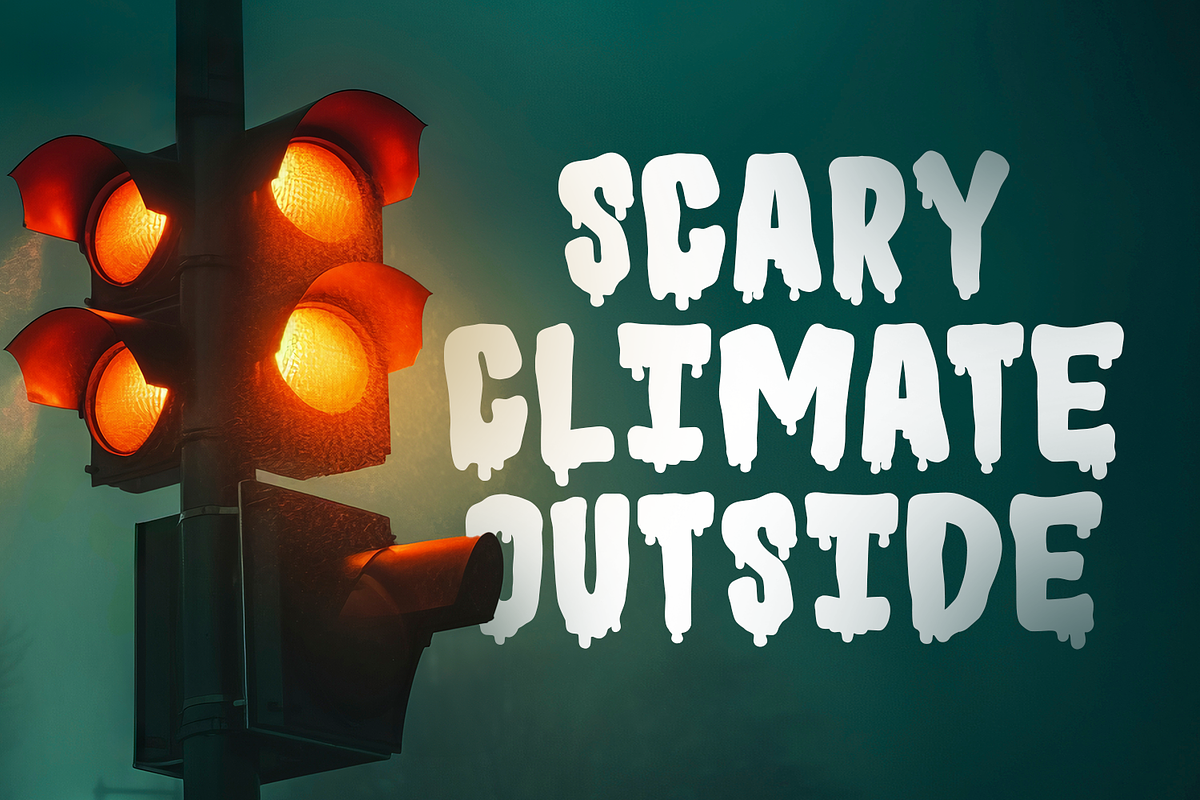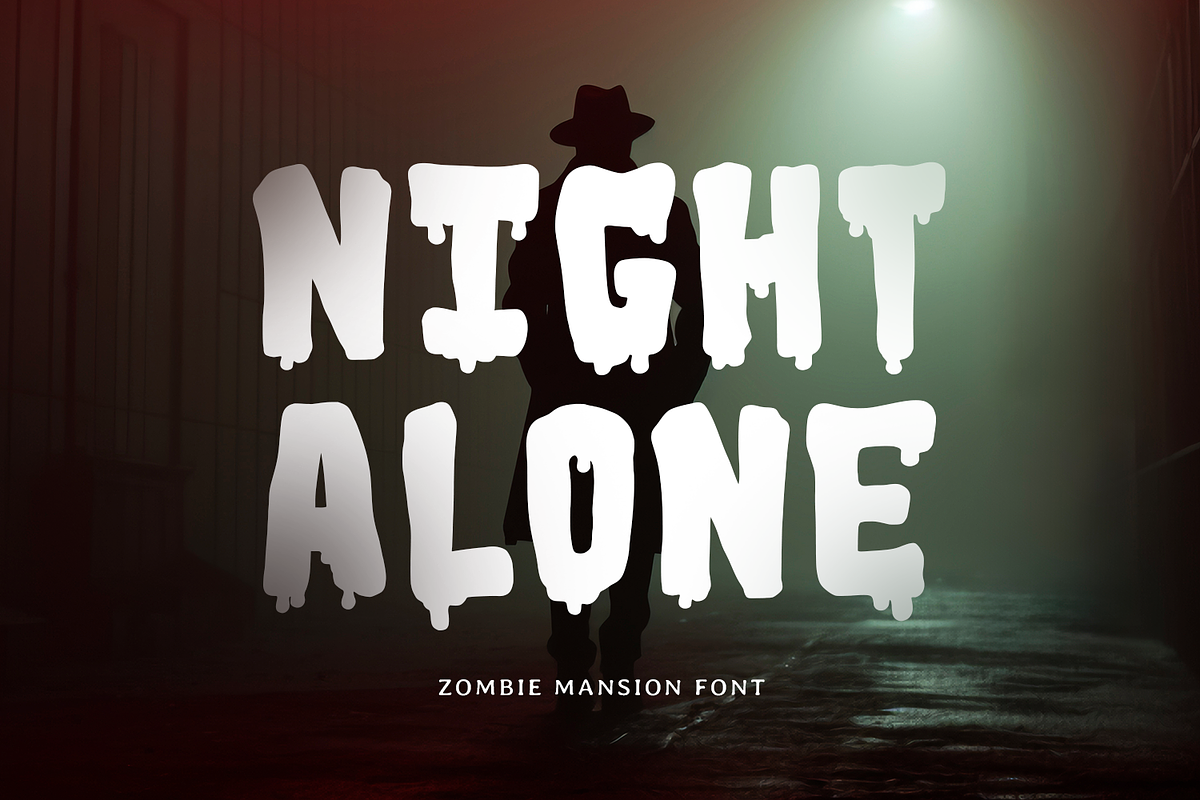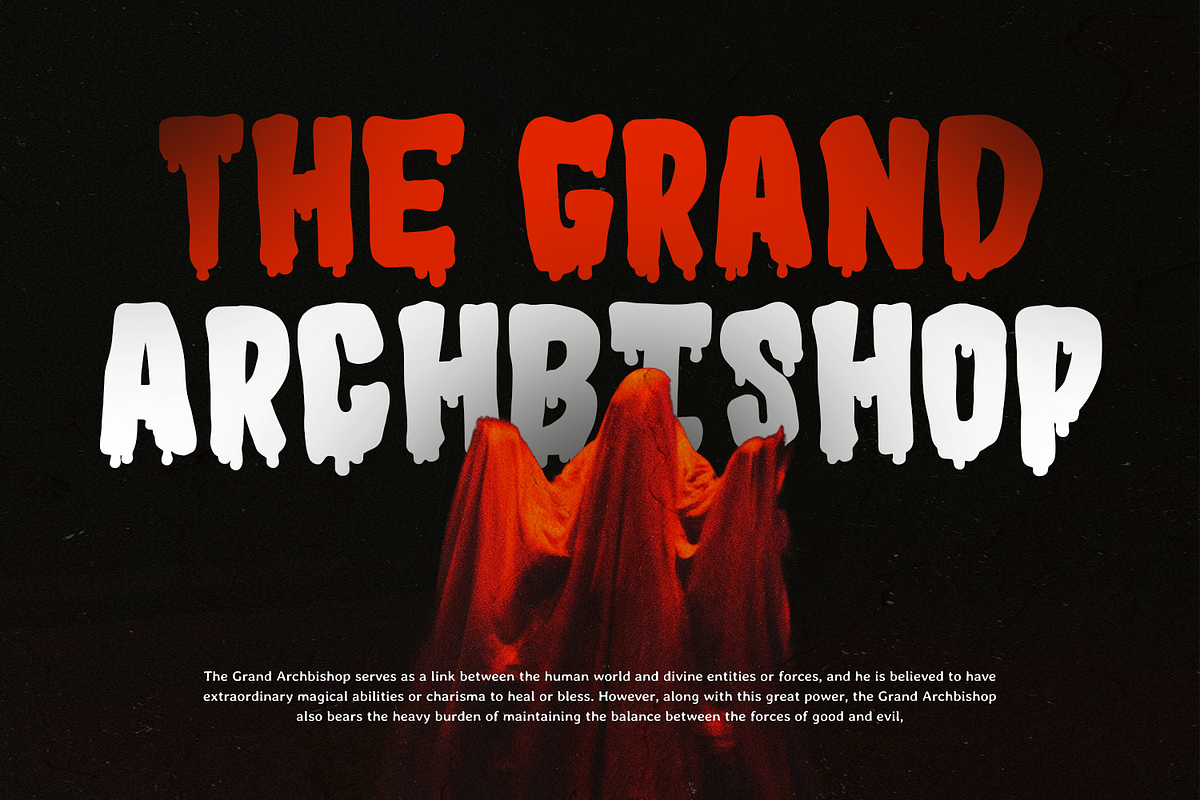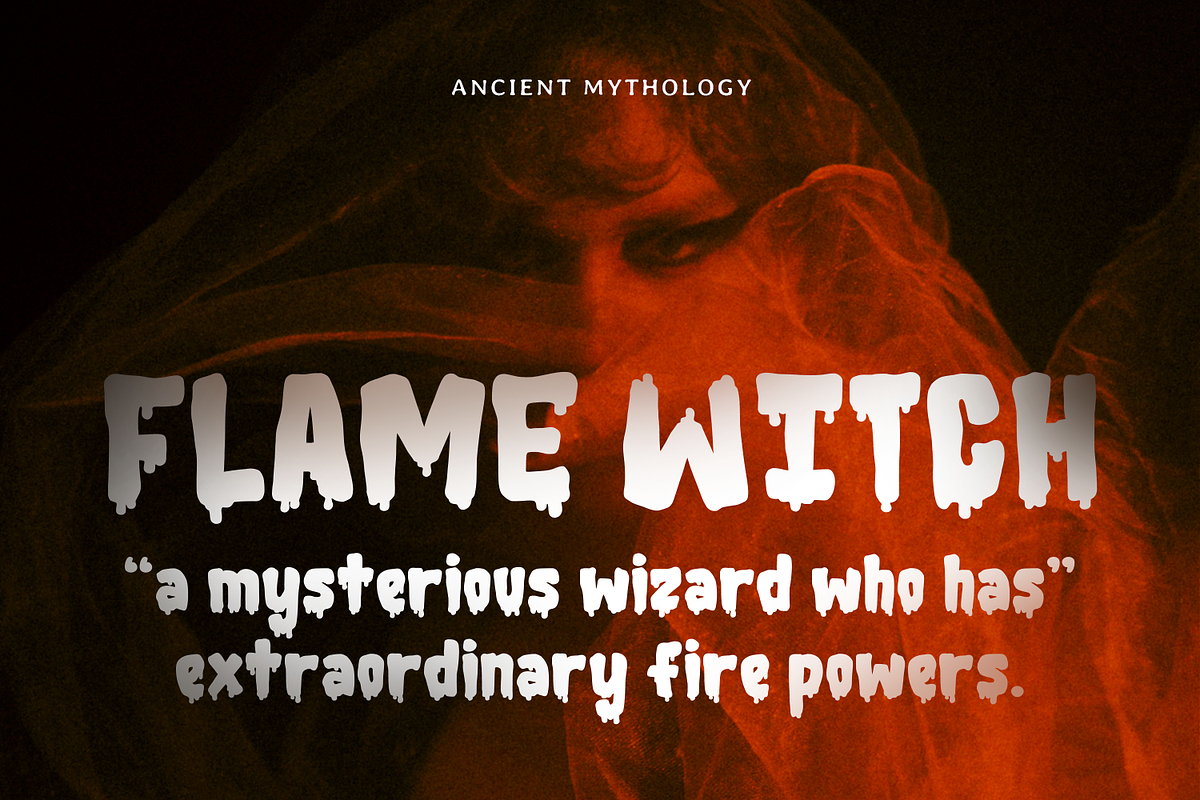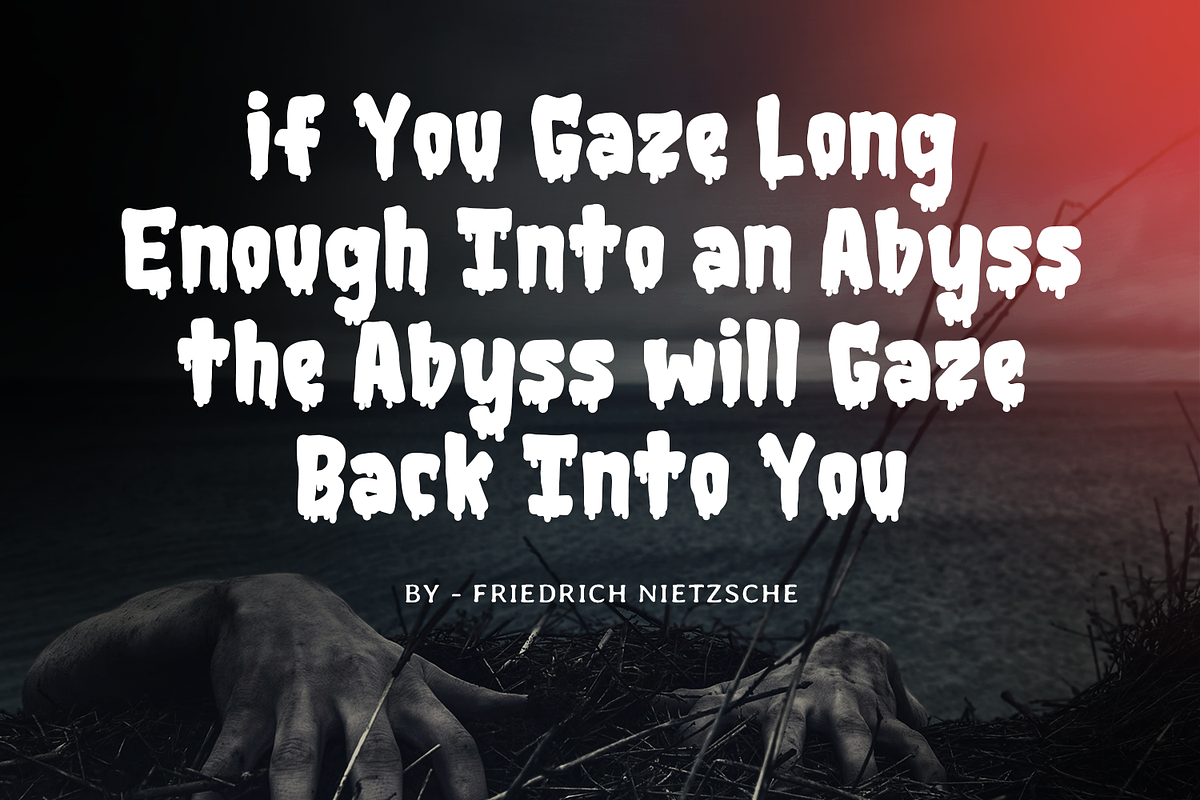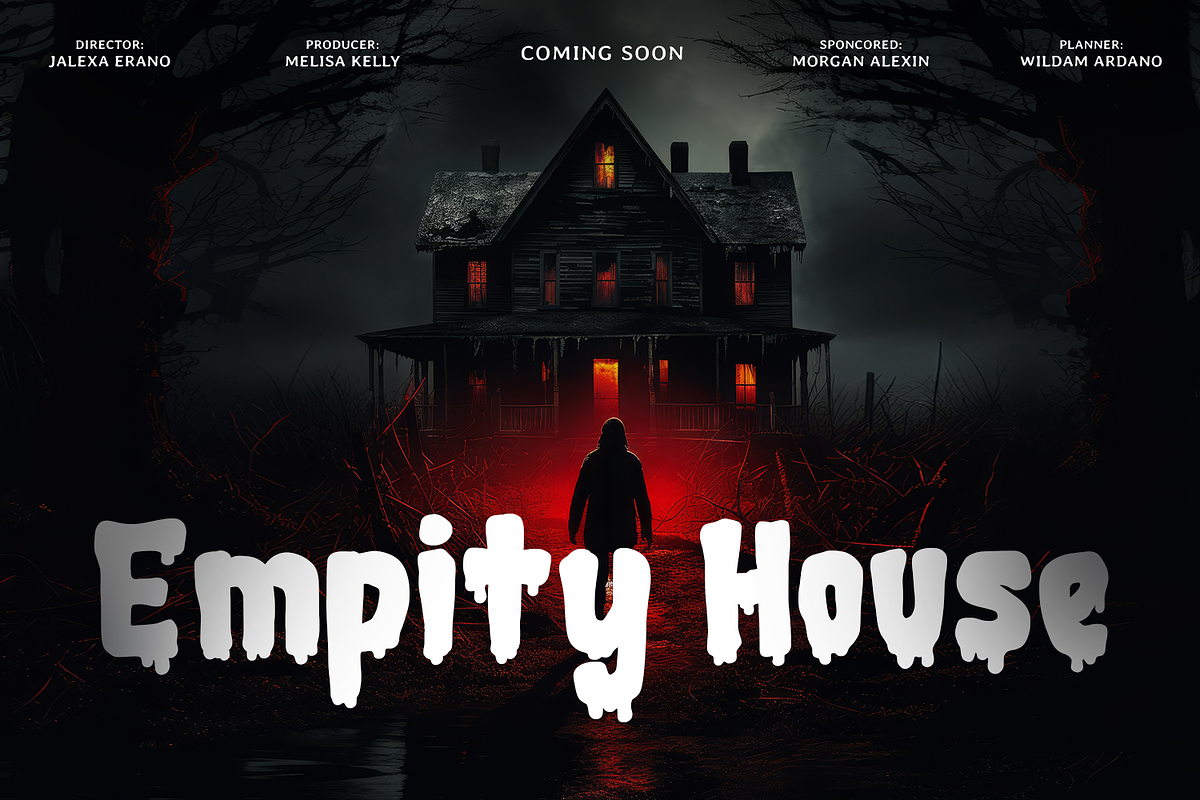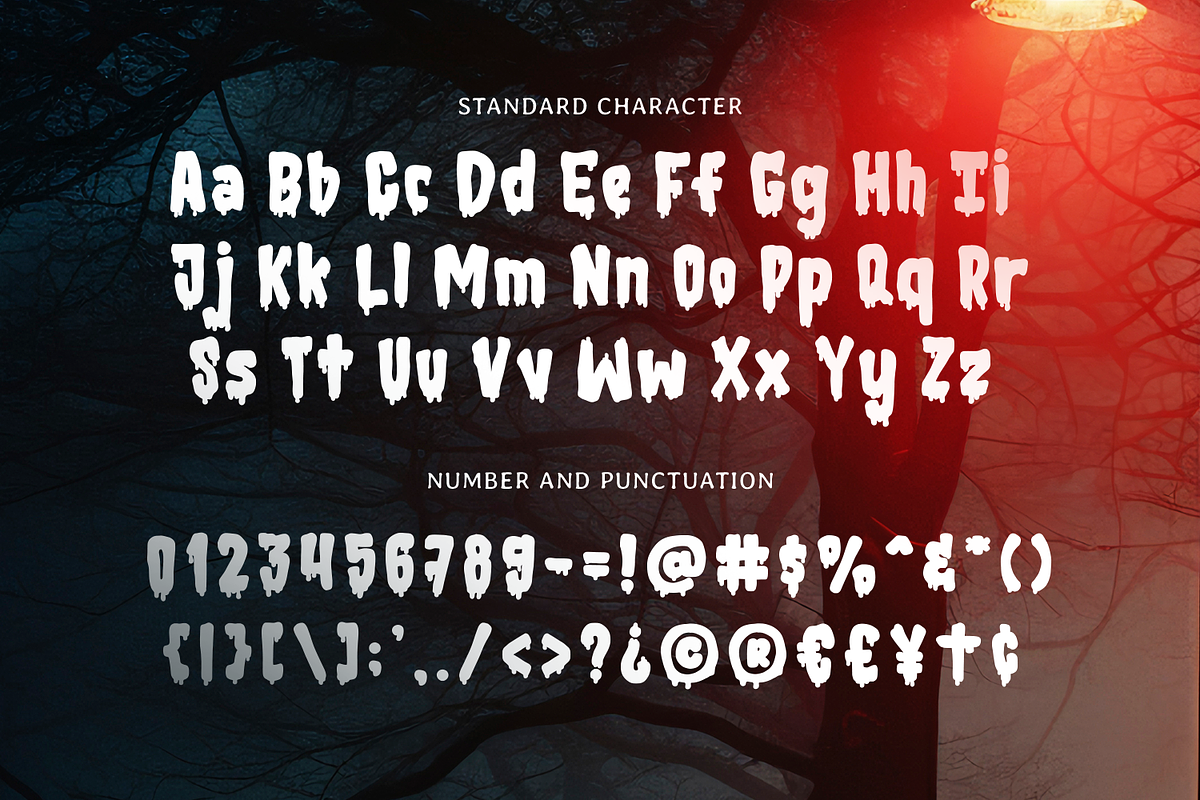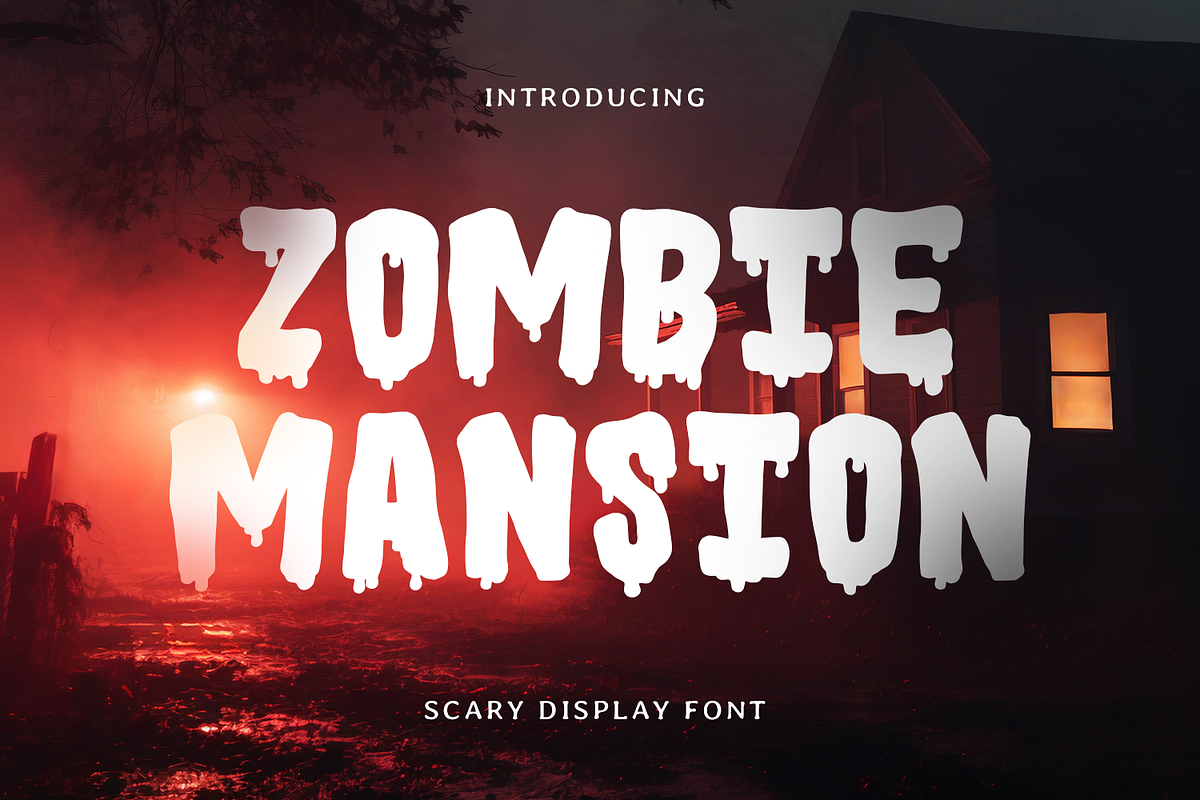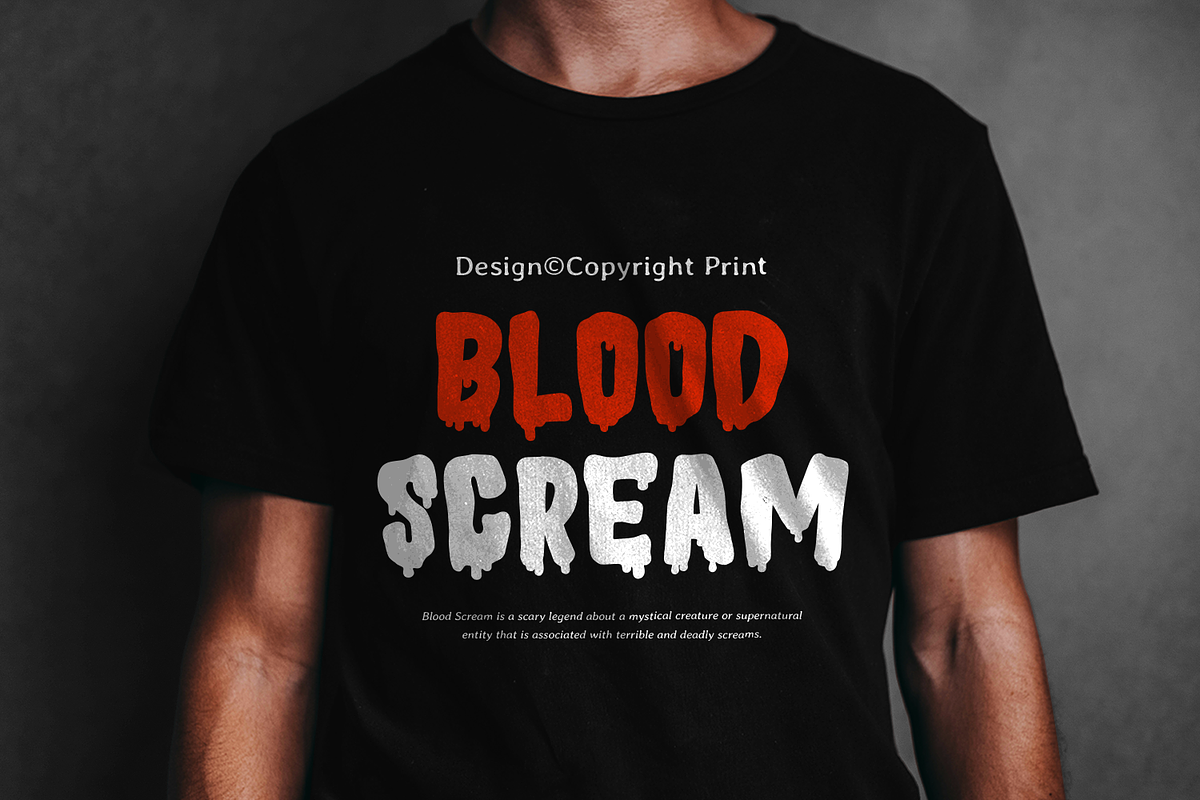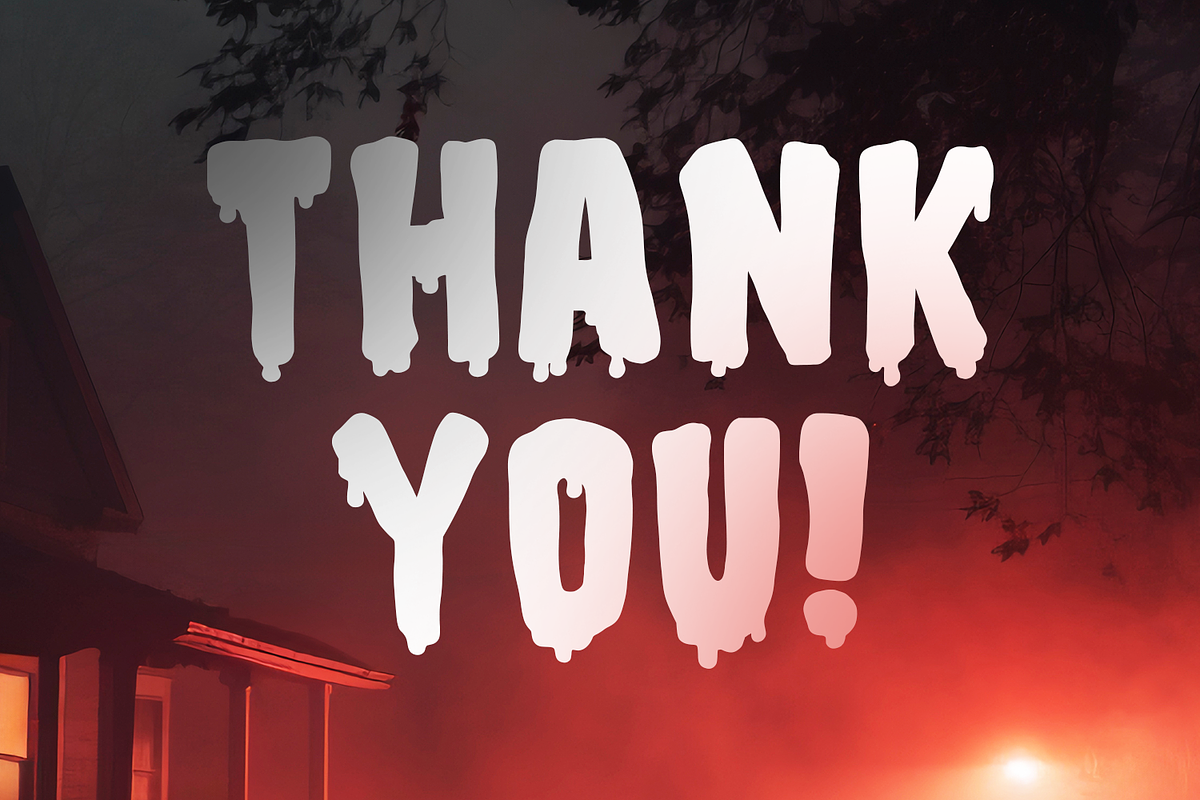
ZOMBIE MANSION
Zombie Mansion is a spine-chilling display font designed to bring your Halloween projects to life! With jagged edges and eerie strokes, this font captures the creepy and thrilling essence of haunted houses, zombies, and midnight frights. Perfect for Halloween invitations, spooky party flyers, horror-themed crafts, and eerie decor, Zombie Mansion is guaranteed to set the mood for a night of terror.
The font’s unsettling texture and dramatic style make it ideal for Cricut designs, SVG projects, and DIY crafting. Its irregular shapes and ghostly appearance give every letter a haunting presence, making it perfect for movie posters, game designs, or eerie branding projects. Whether you're designing for Halloween or creating something sinister year-round, Zombie Mansion will keep your audience on edge.
- Standard & Multilingual glyphs.